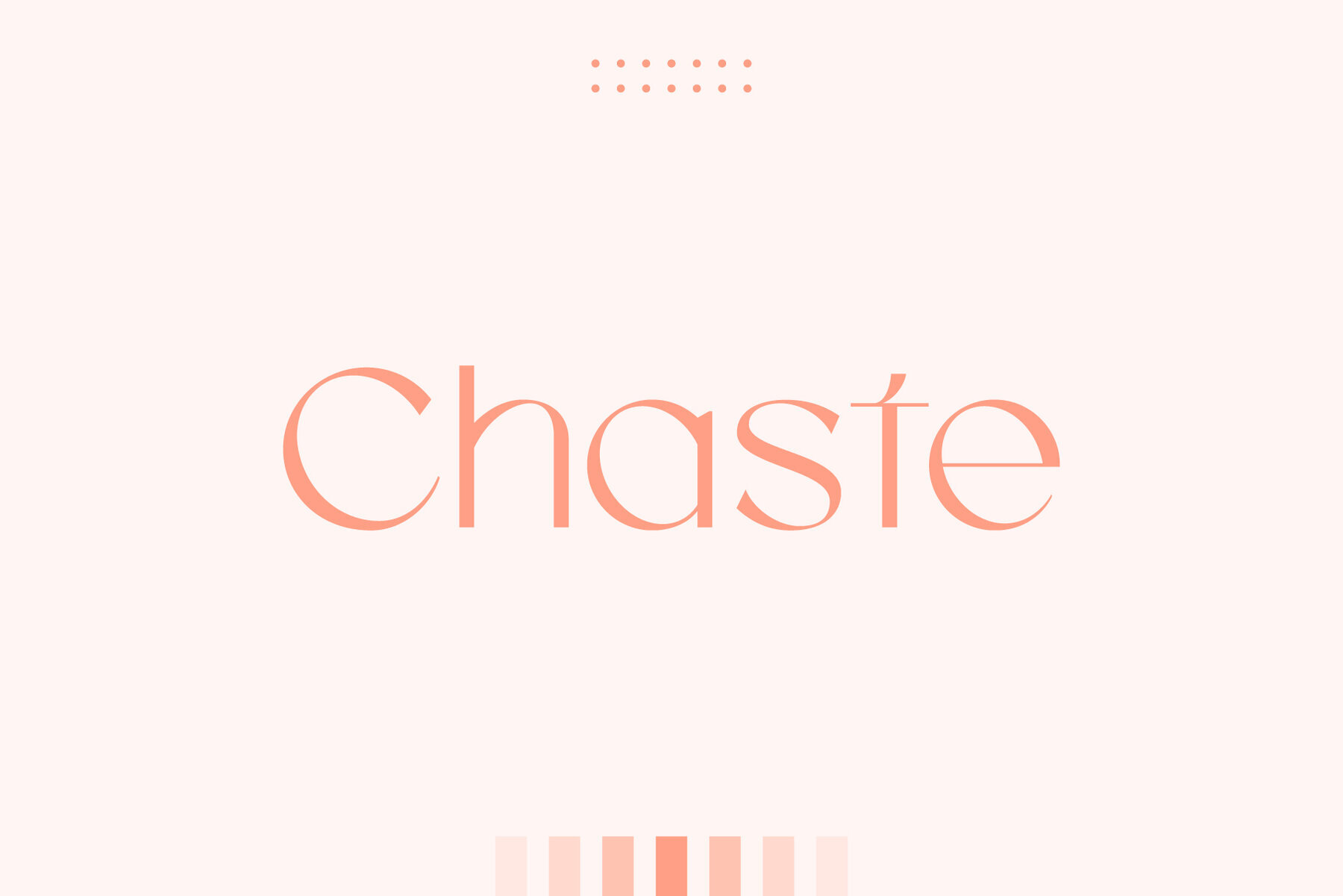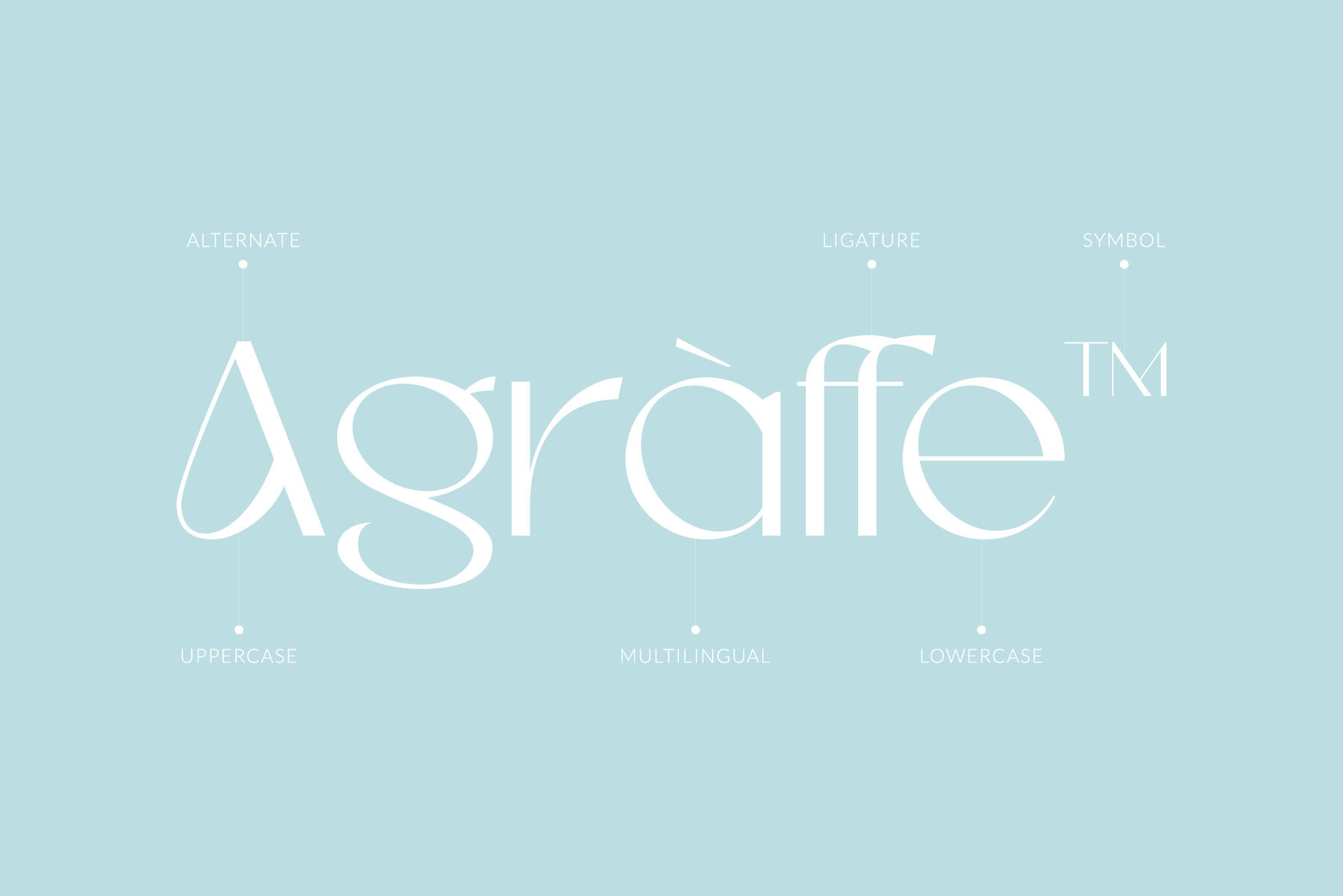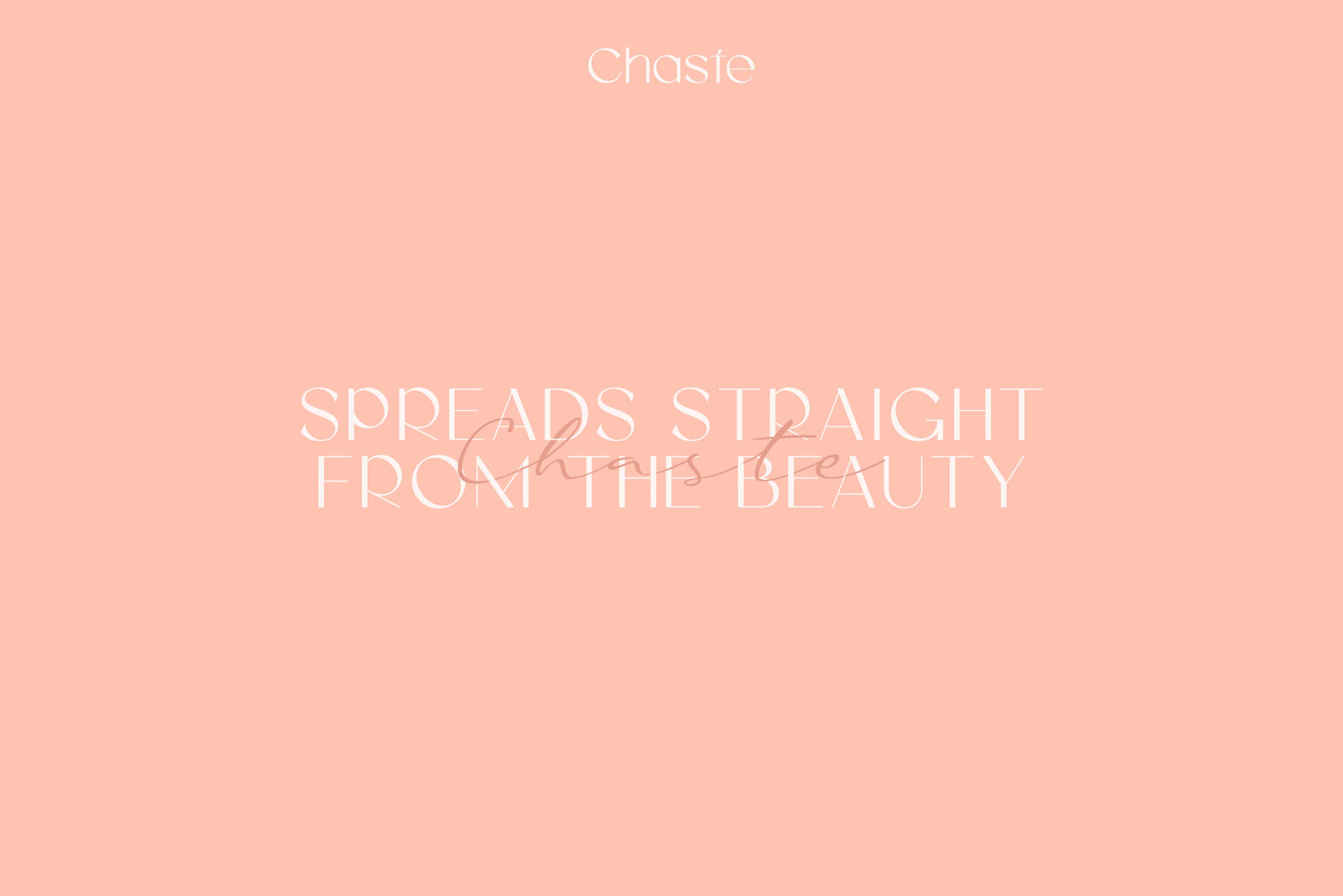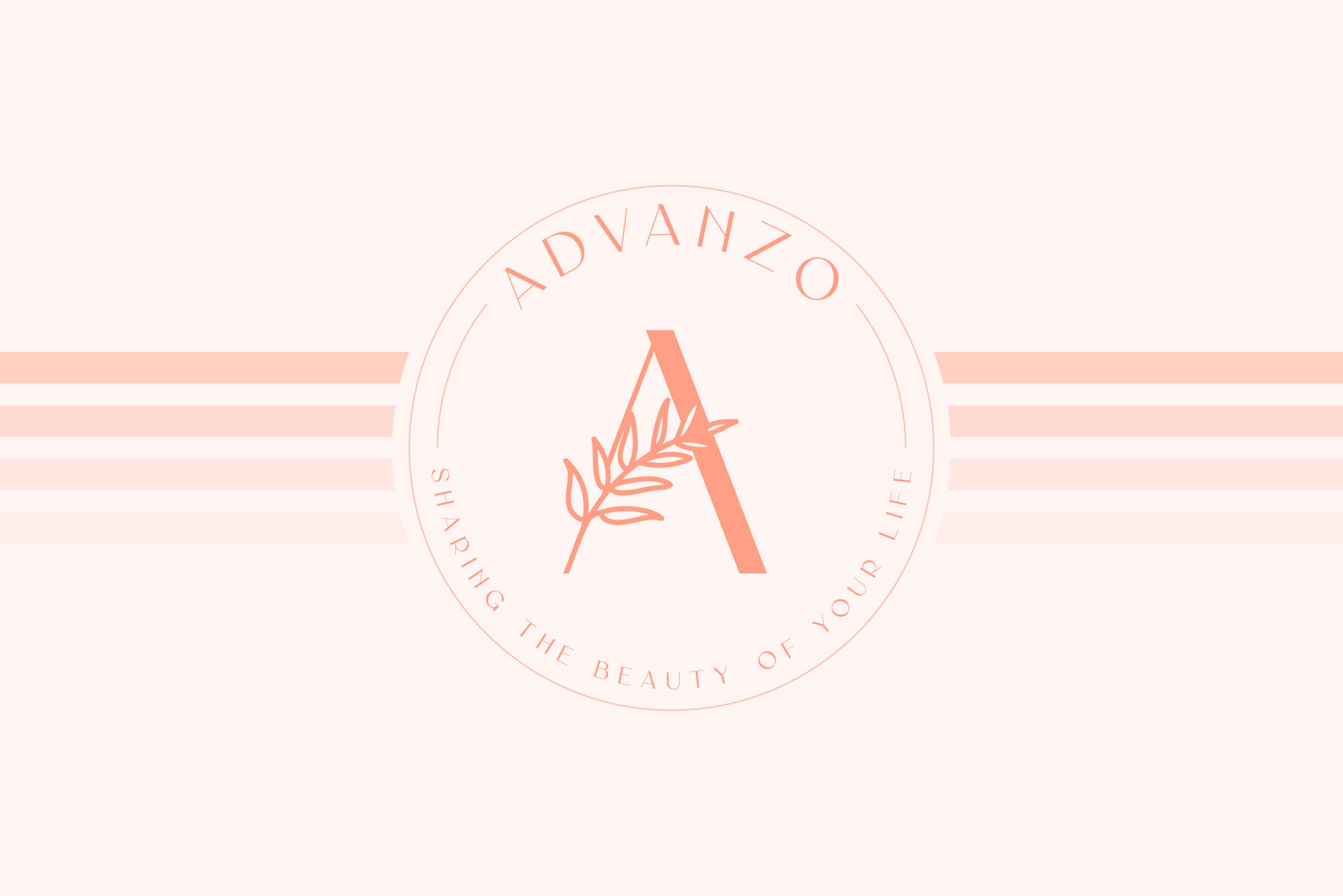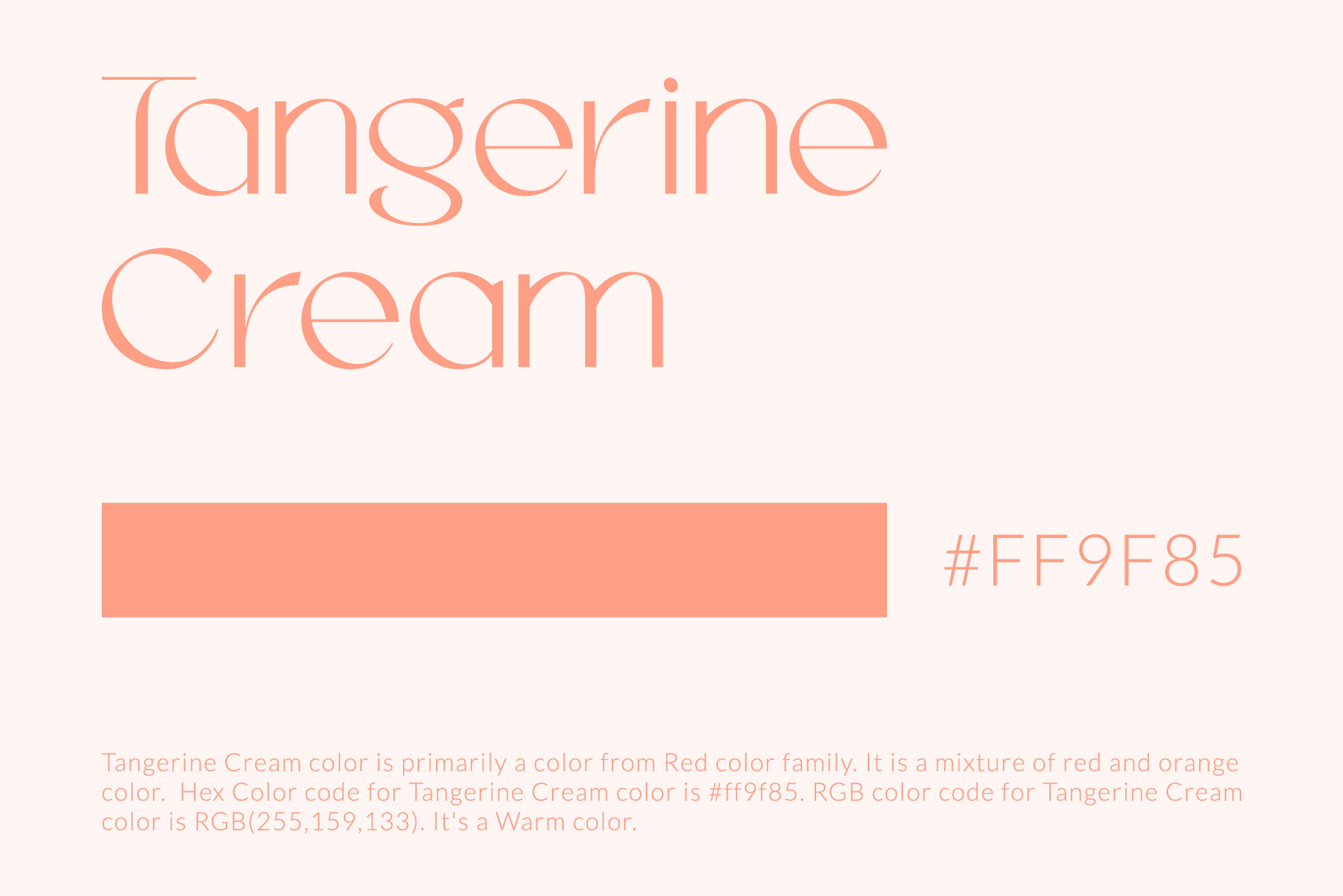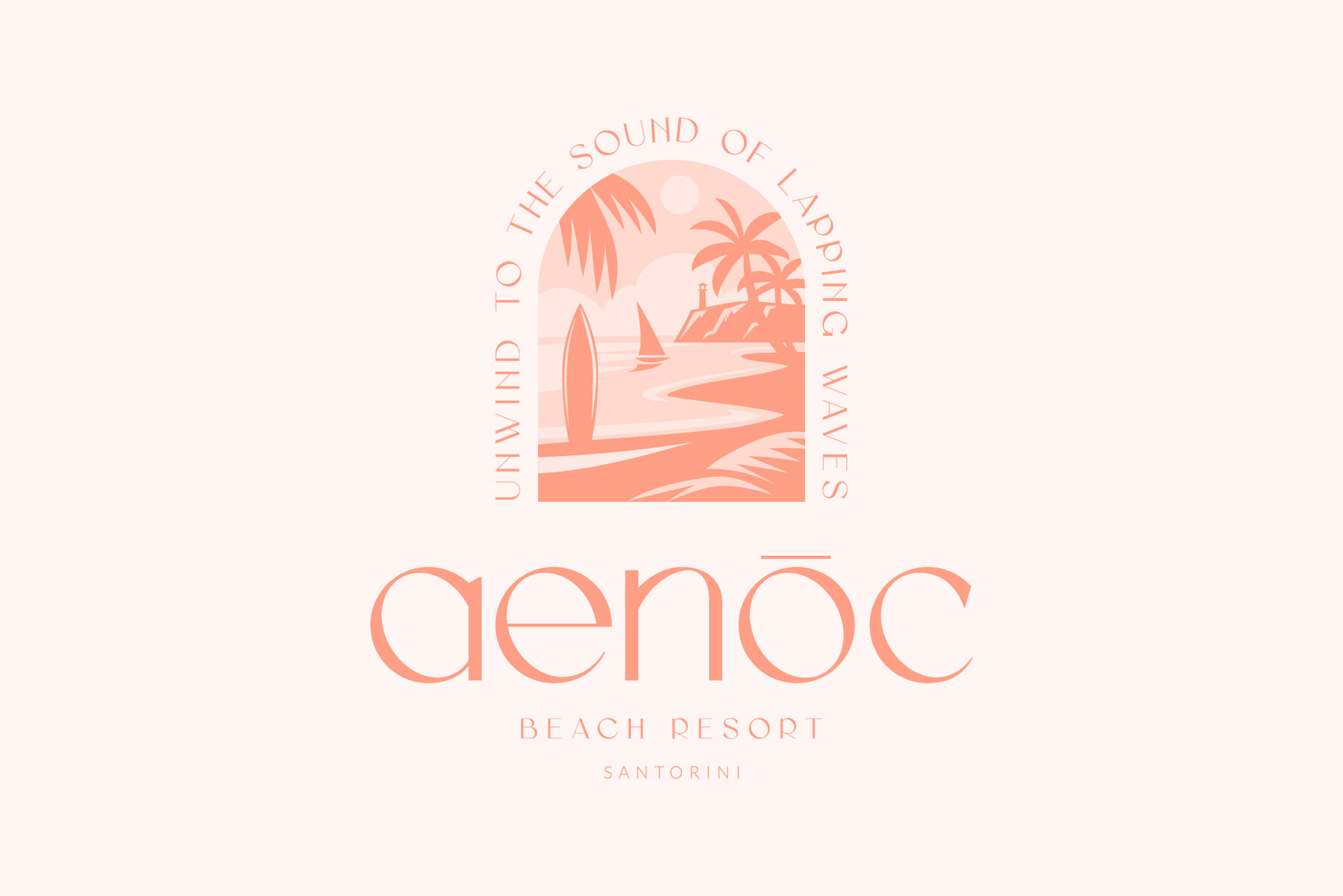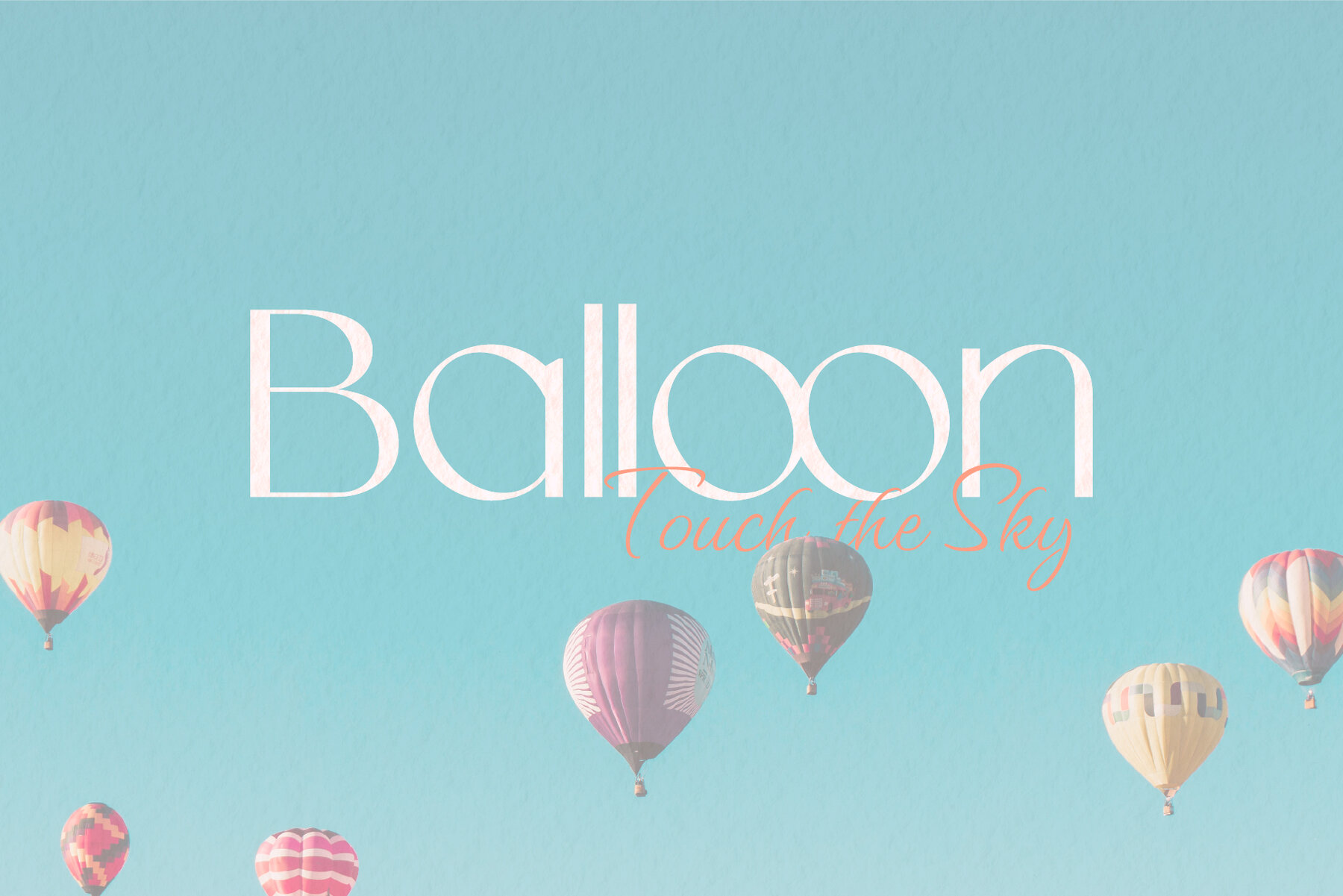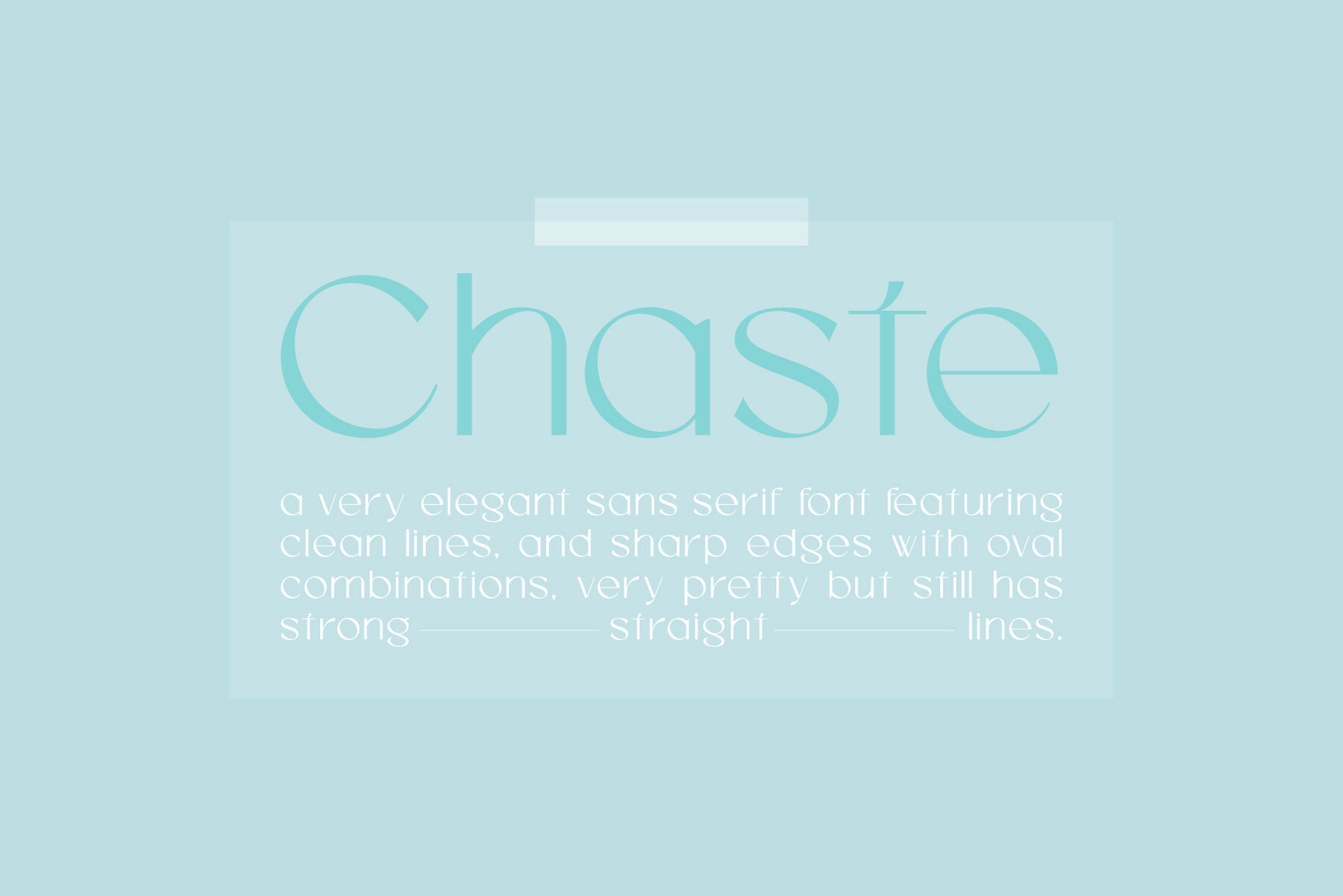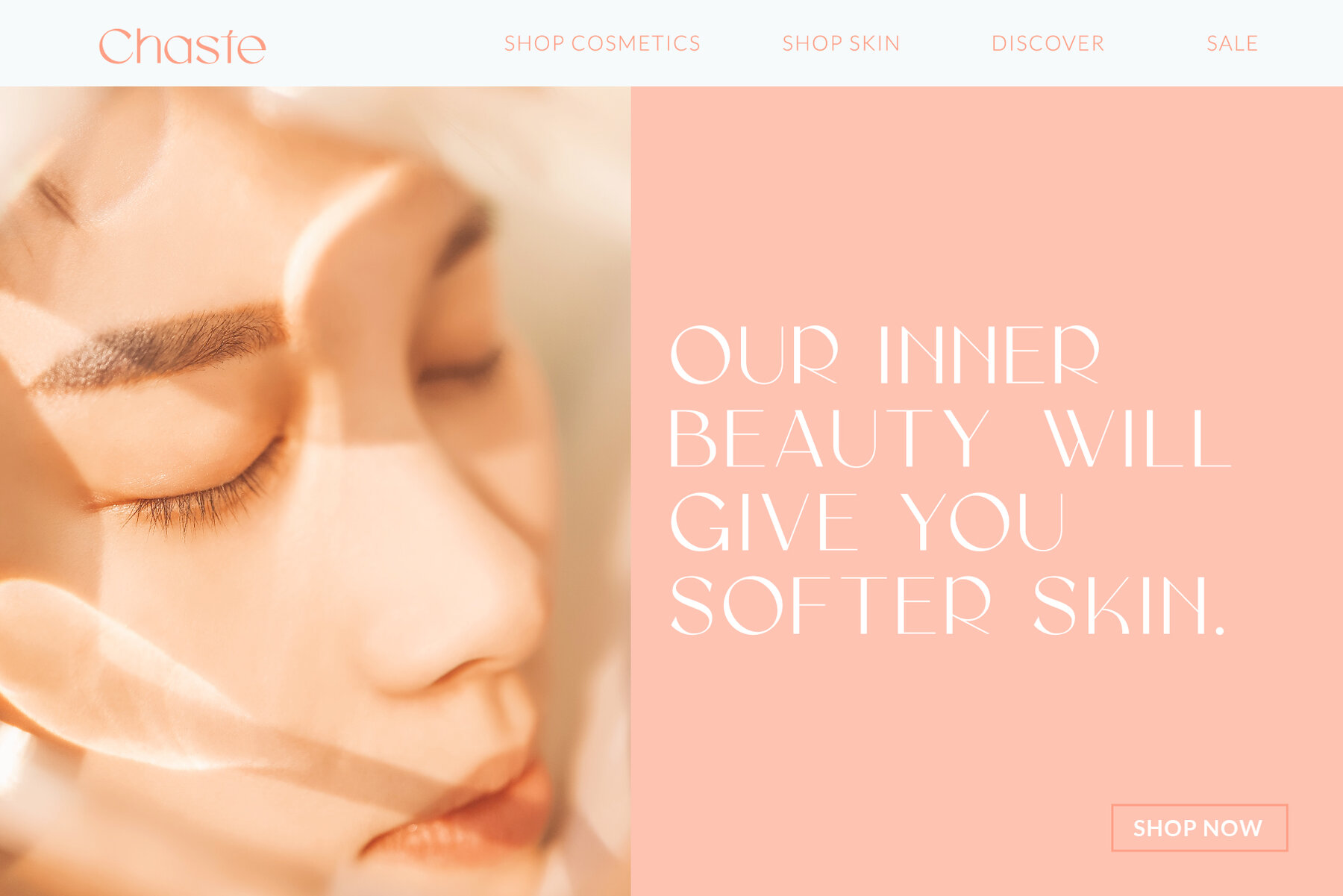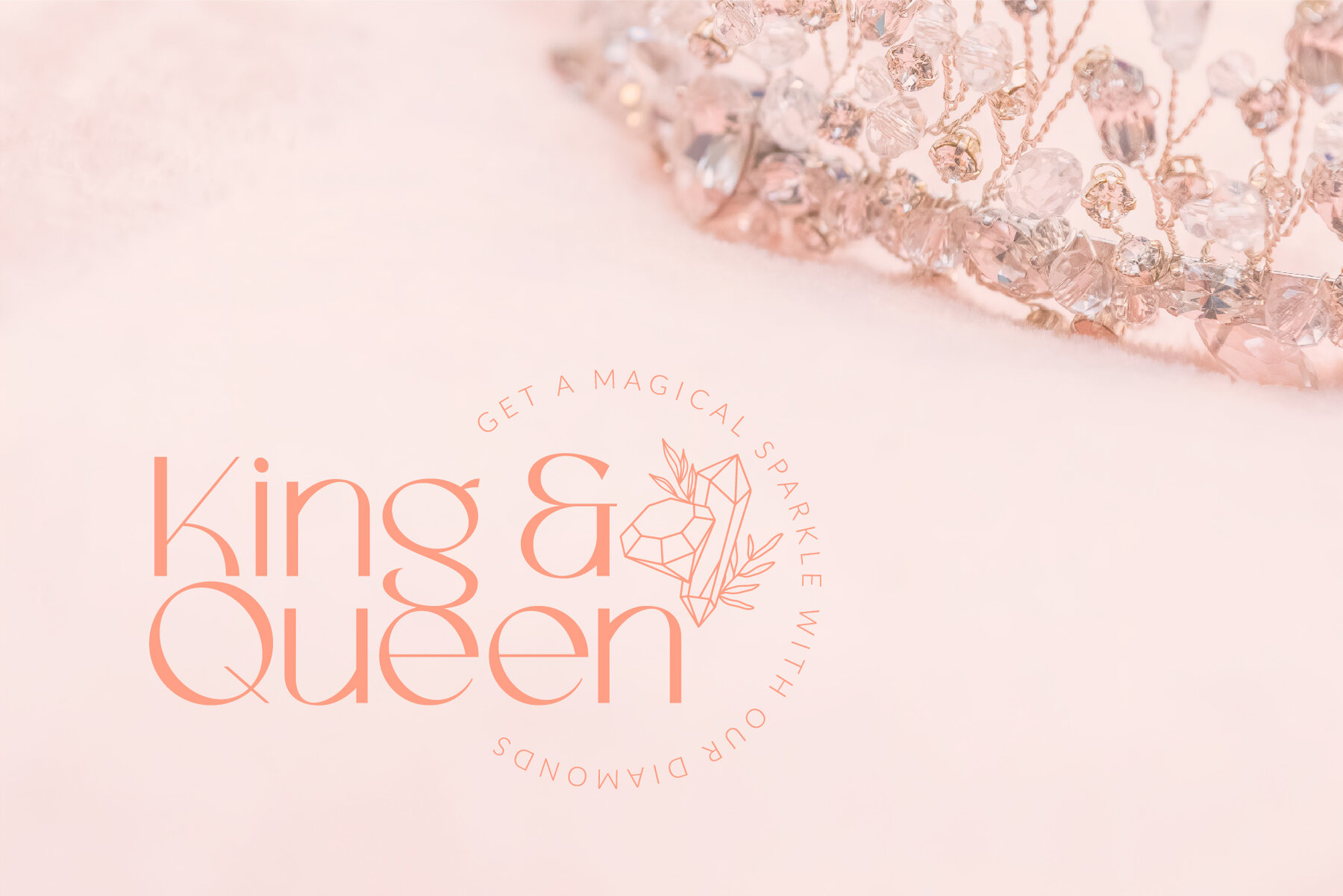
Chaste Font
Chaste
Chaste a very elegant sans serif font featuring clean lines, and sharp edges with oval combinations, very pretty but still has strong straight lines.
Chaste makes it very easy for those of you who design minimalist and modern designs, it has upper and lowercase letters that are very easy to combine with other fonts.